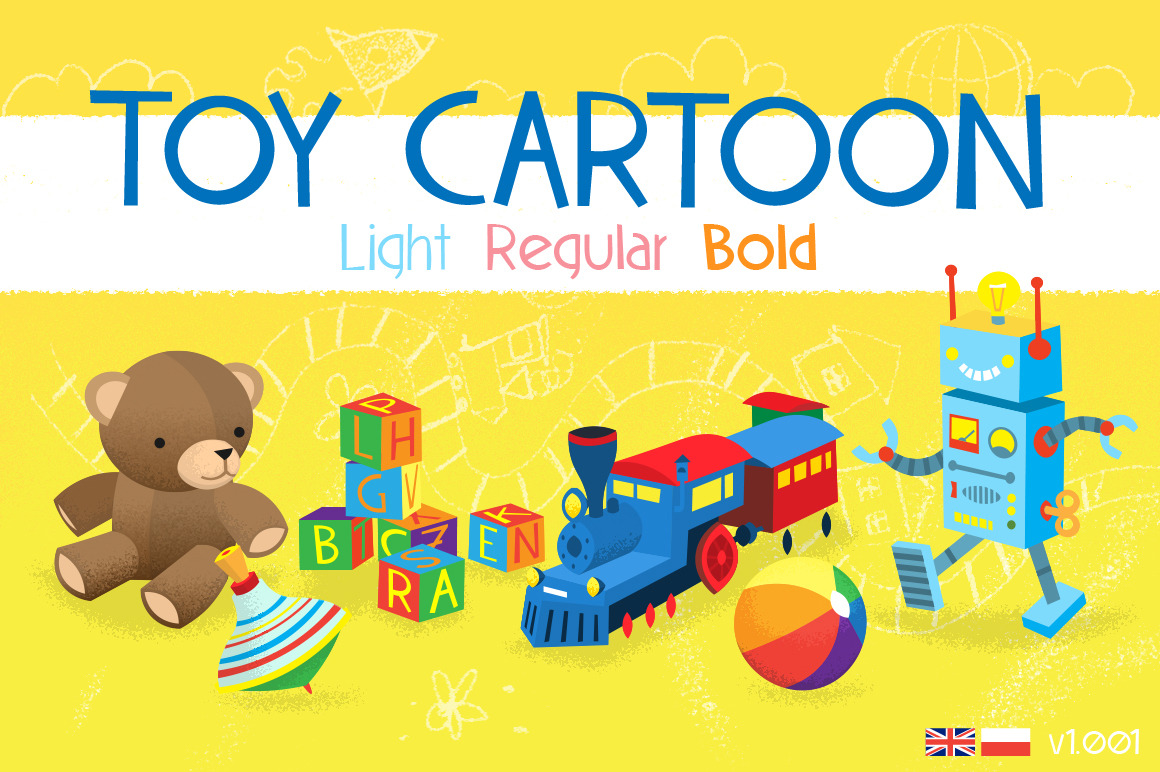
Toy Cartoon font
Toy Cartoon font is a simple playful cartoon font. An excellent choice for birthday cards, invitations and party posters. Best for children related goods and designs.